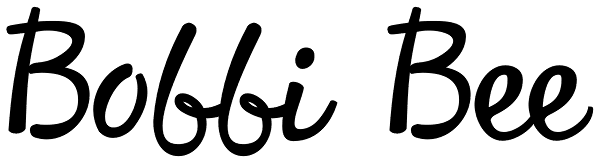
Bobbi Bee
Bobbi Bee won't stop popping her bubblegum, even though that's not very ladylike.
Bobbi Bee is very proud of all of her 361 numbers, letters and alternates - all of which are chock full of summer sunshine and life. The font comes in a single...